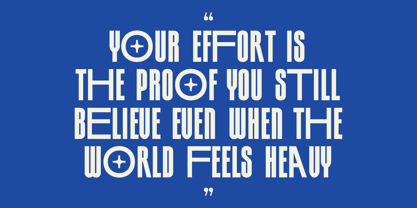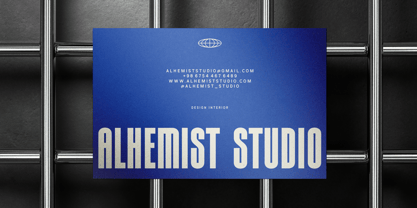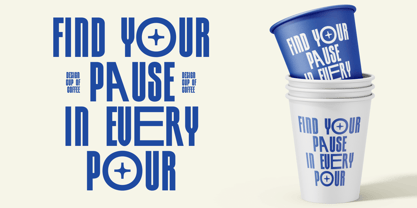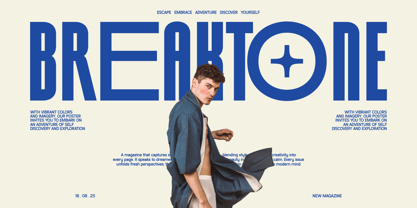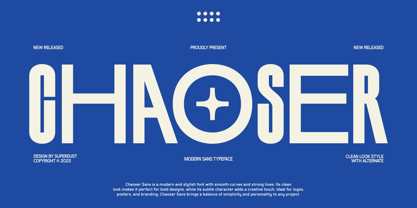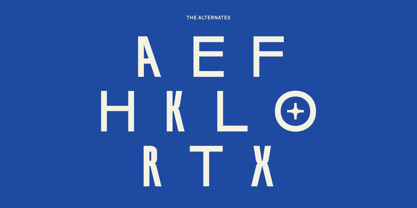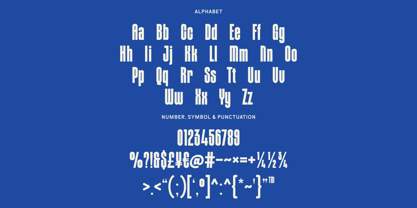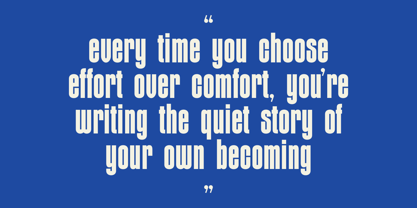
Chaoser
by Super Dust
The Chaoser Font Family was designed by Tri Iriyanto Wibowo and published by Super Dust. Chaoser contains 1 styles. More about this family
Chaoser is a modern sans-serif typeface designed with a clean, refined, and contemporary look. Created to deliver clarity and confidence, Chaoser combines sleek geometric forms with balanced proportions, making it highly versatile for a wide range of creative projects. Whether used for logo design, branding, packaging, editorial layouts, social media content, websites, or modern marketing materials, this typeface brings a professional and sophisticated presence to every composition.
The story behind the name Chaoser comes from the idea of finding order within chaos. In a world filled with endless visual noise and constant movement, Chaoser was designed to represent balance, simplicity, and structure. The name reflects the creative process itself—transforming scattered ideas into something clear, meaningful, and visually powerful. Every letterform was carefully crafted to maintain a clean appearance while preserving a distinctive personality that helps brands stand out with confidence.
With its minimalist aesthetic and timeless character, Chaoser adapts effortlessly to both bold headlines and elegant brand identities. The font is perfect for designers seeking a modern, clean, and stylish solution that remains highly readable across digital and print applications.